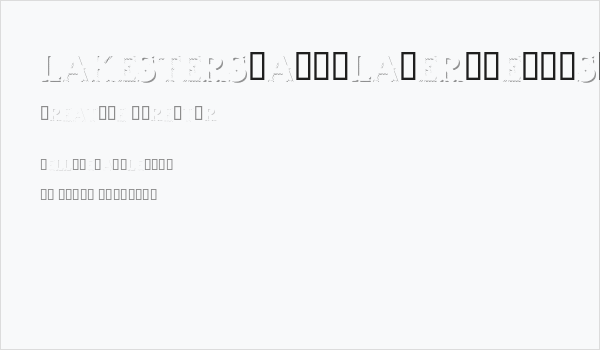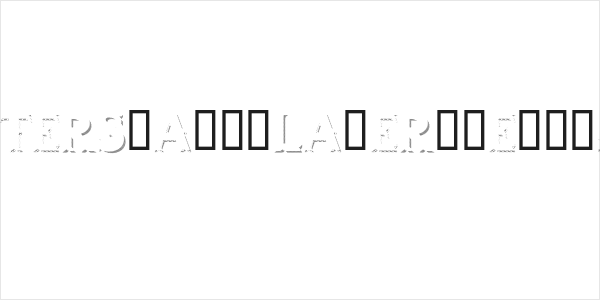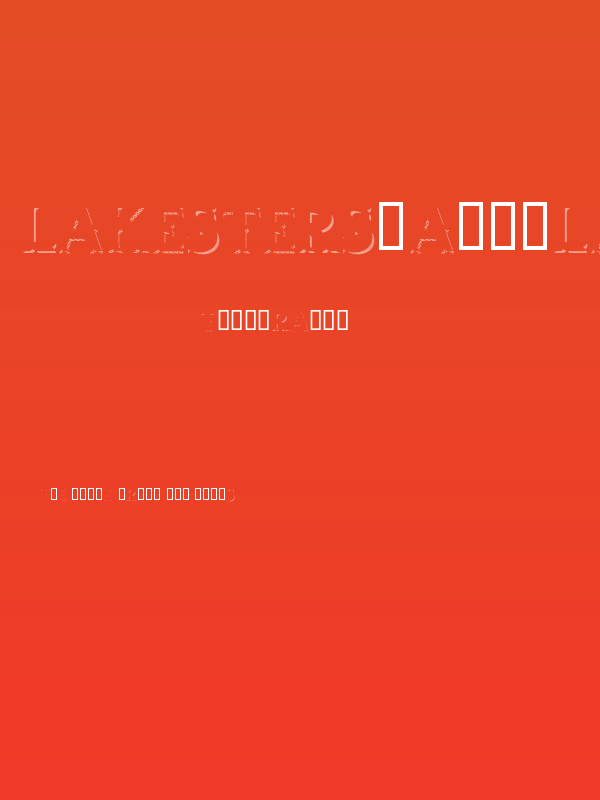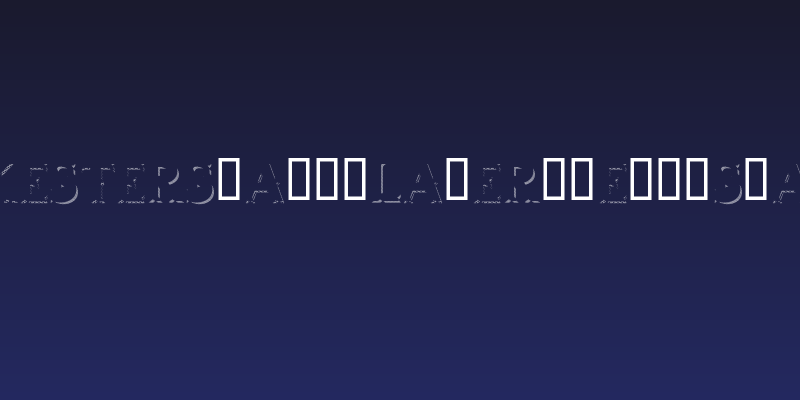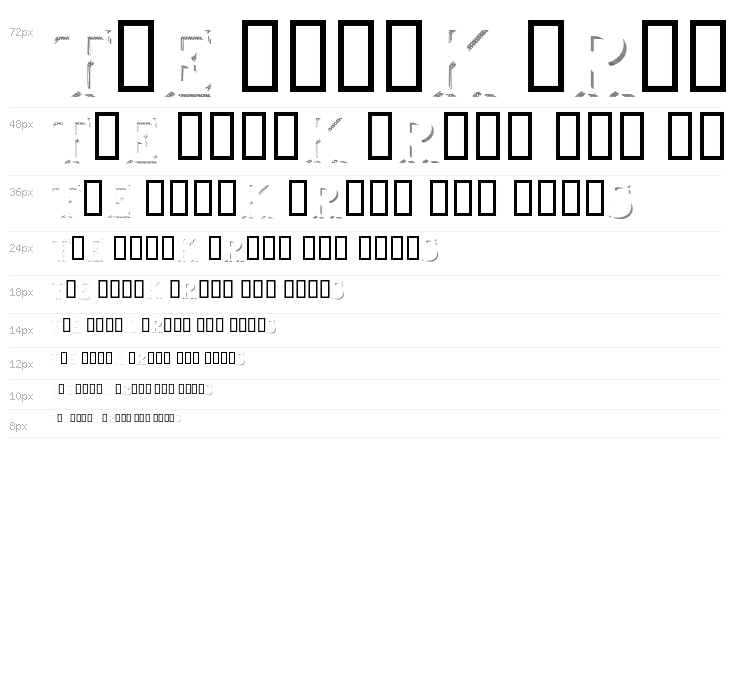
LAKESTERSHADOWLAYER2DEMO-SHADOW Font
LAKESTERSHADOWLAYER2DEMO-SHADOW Description
This font features a bold and striking shadow effect that gives each character a three-dimensional appearance. The uppercase letters are designed with a strong, geometric structure, while the shadow adds depth and a sense of movement. The font's style is reminiscent of vintage signage, making it ideal for projects that require a touch of retro flair. The characters are evenly spaced, ensuring readability despite the decorative shadow. This font is particularly suited for display purposes where impact and style are paramount.
| Proposed Projects | Ideal for retro-themed posters, signage, logos, and headlines that require a bold statement. |